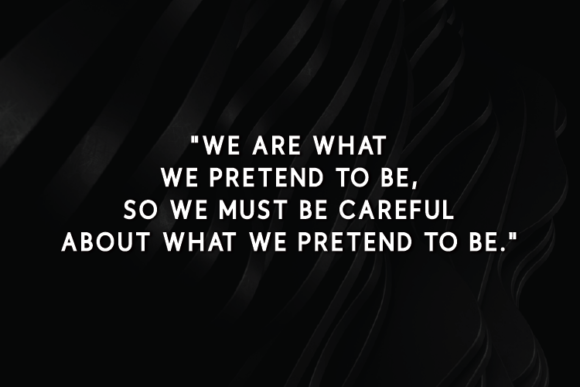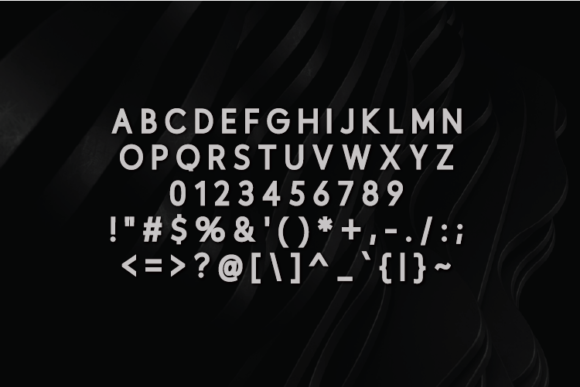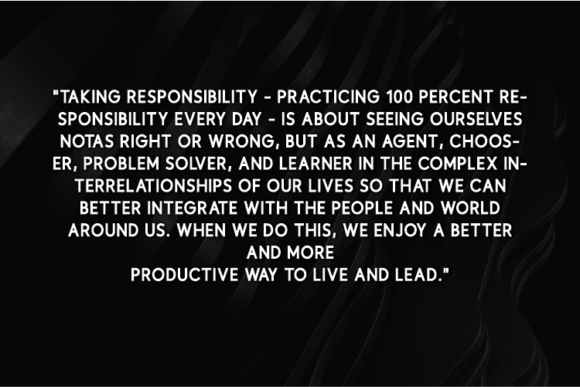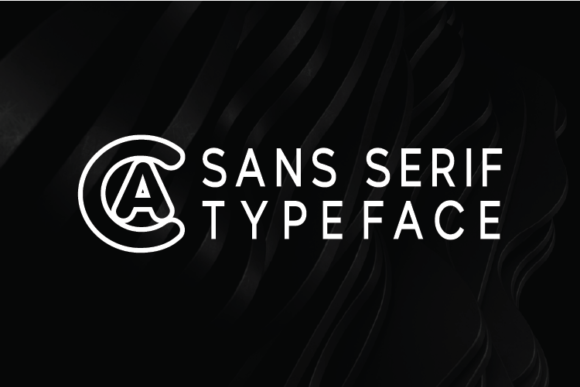
Hellios Font: Elevate Your Designs with a Modern and Classy Sans Serif Typeface
In the world of typography, a good font can make all the difference in elevating your design to the next level. If you’re a designer or crafter looking for a versatile and stylish sans serif typeface, look no further than Hellios Font. This modern and classy font is perfect for a wide range of applications, from logos and weddings to invitations, quotes, advertisements, print, magazines, and more!
What is Hellios Font?
Hellios Font is a sleek and sophisticated sans serif typeface that exudes elegance and refinement. Its clean lines, precise curves, and balanced proportions make it an ideal choice for designers seeking a modern and professional look. Whether you’re creating a logo, brochure, or social media graphic, Hellios Font is sure to make a lasting impression.
Key Features of Hellios Font
- Versatility: Hellios Font is extremely versatile, making it suitable for a wide range of design applications, from print to digital media.
- Modern and Classy: This font boasts a modern and classy aesthetic, perfect for designers seeking a sophisticated look.
- Easy to Read: Hellios Font is designed to be easy to read, making it perfect for body text, headings, and titles.
- Highly Legible: The font’s precise curves and balanced proportions ensure high legibility, even at small sizes.
Use Cases for Hellios Font
Hellios Font is an incredibly versatile typeface that can be used in a variety of design applications, including:
- Logos: Create a professional and modern logo for your business or brand with Hellios Font.
- Weddings and Invitations: Add a touch of elegance to your wedding invitations, save-the-dates, and other stationery with Hellios Font.
- Quotes and Posters: Use Hellios Font to create inspiring quotes, posters, and social media graphics that grab attention.
- Advertisements: Elevate your advertisements with a modern and classy look that sets your brand apart.
- Print and Magazines: Use Hellios Font in your print materials, such as brochures, flyers, and magazines, to add a touch of sophistication.
Why Choose Hellios Font?
With so many fonts available, why choose Hellios Font? Here are just a few reasons why designers and crafters love this modern and classy sans serif typeface:
- Unique Aesthetic: Hellios Font offers a unique and distinctive aesthetic that’s sure to set your designs apart.
- High-Quality Design: This font is designed with precision and attention to detail, ensuring a high-quality look that’s consistent across all applications.
In conclusion, Hellios Font is an exceptional sans serif typeface that’s perfect for designers and crafters seeking a modern and classy look. Its versatility, ease of use, and high-quality design make it an excellent choice for a wide range of applications, from logos and weddings to advertisements and print materials. If you’re looking to elevate your designs and add a touch of sophistication, look no further than Hellios Font.